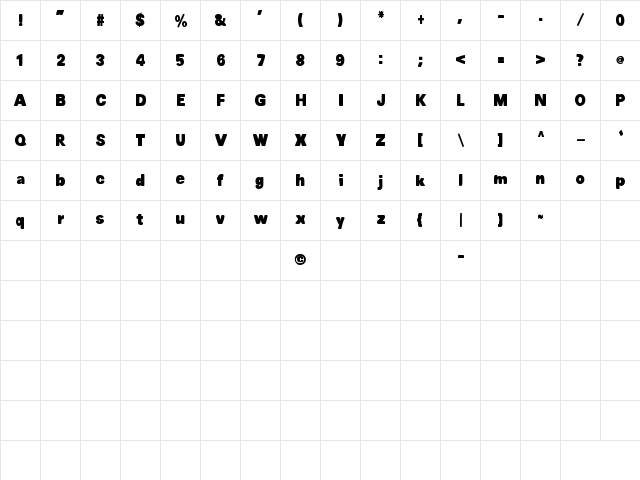
MTF Chubb Regular
| Designer | Tina Raparanta a.k.a. MissTiina |
Design Context for MTF Chubb Typeface
MTF Chubb takes a measured approach to typography — its balanced proportions and neutral character make it a reliable workhorse for both digital and print work.